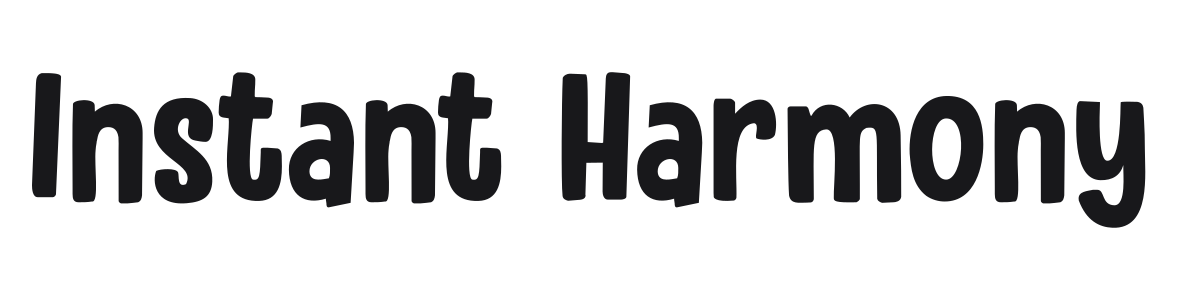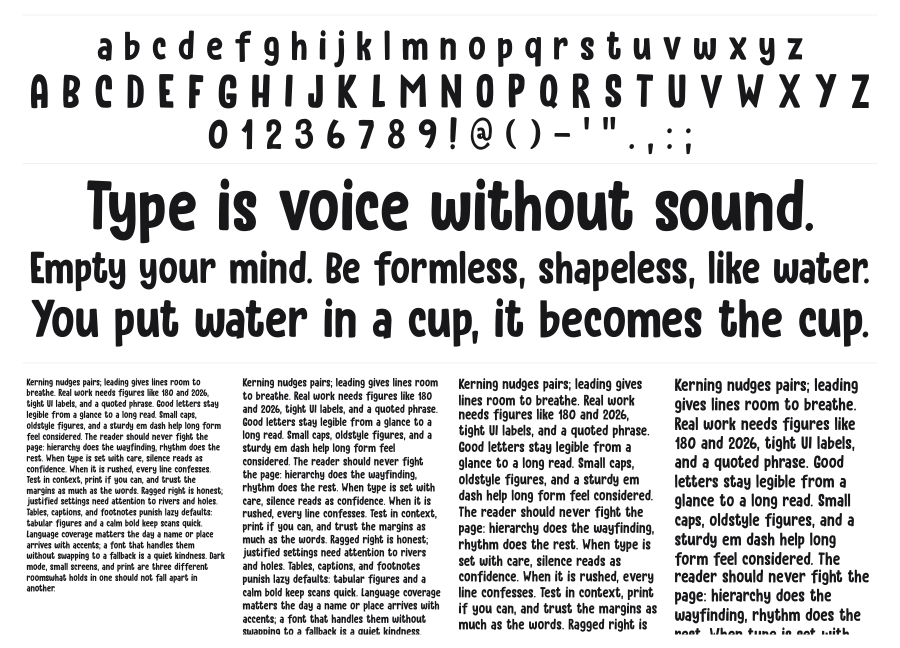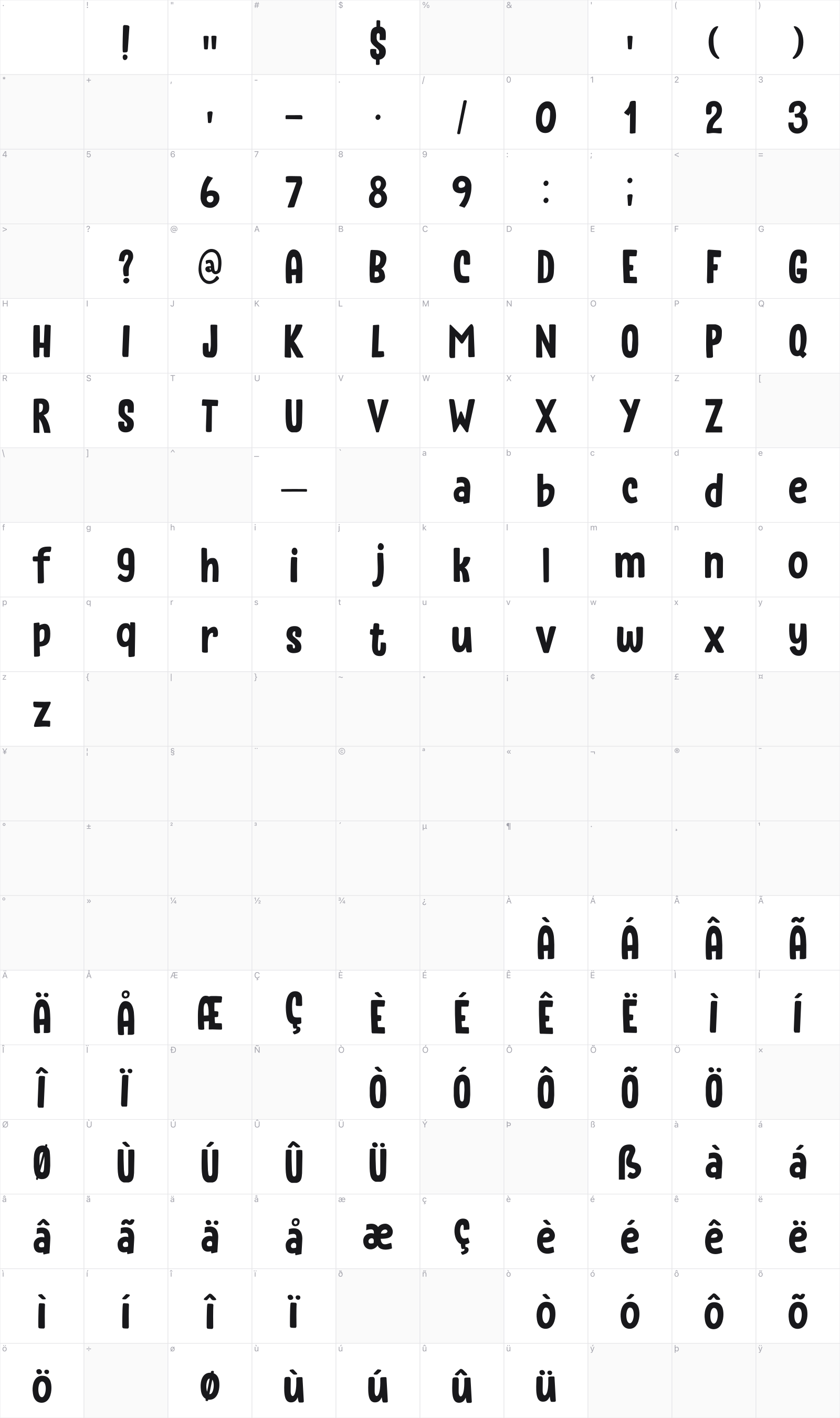
Instant Harmony
Instant Harmony is a bold rounded sans with a hand-drawn energy and thick, softly tapered strokes. The subtle irregularities across characters keep it feeling human rather than mechanical, sitting somewhere between a casual display face and a comic book sans. It works well at headline sizes wherever a warm, unpretentious tone is needed.